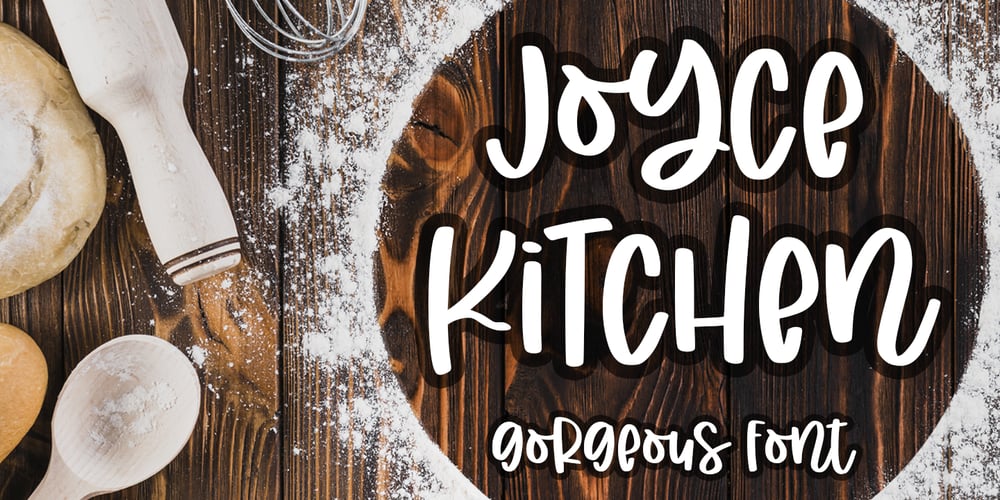
Joyce Kitchen Font Family was designed by Abo Daniel and published by Abo Daniel. Joyce Kitchen contains 1 styles and family package options. introducingJOYCE KITCHEN- gorgeous quirk font -It is great for branding, packaging, logo, quotes, t-shirt design, card, banner, and anything your craft project.Uppercase and lowercase characters match each other.What’s included?- Uppercase- Lowercase- Numeral & Punctuations- Multilingual- Ligatures- PUA encodedHope you love it.regards,Abo Daniel Studio